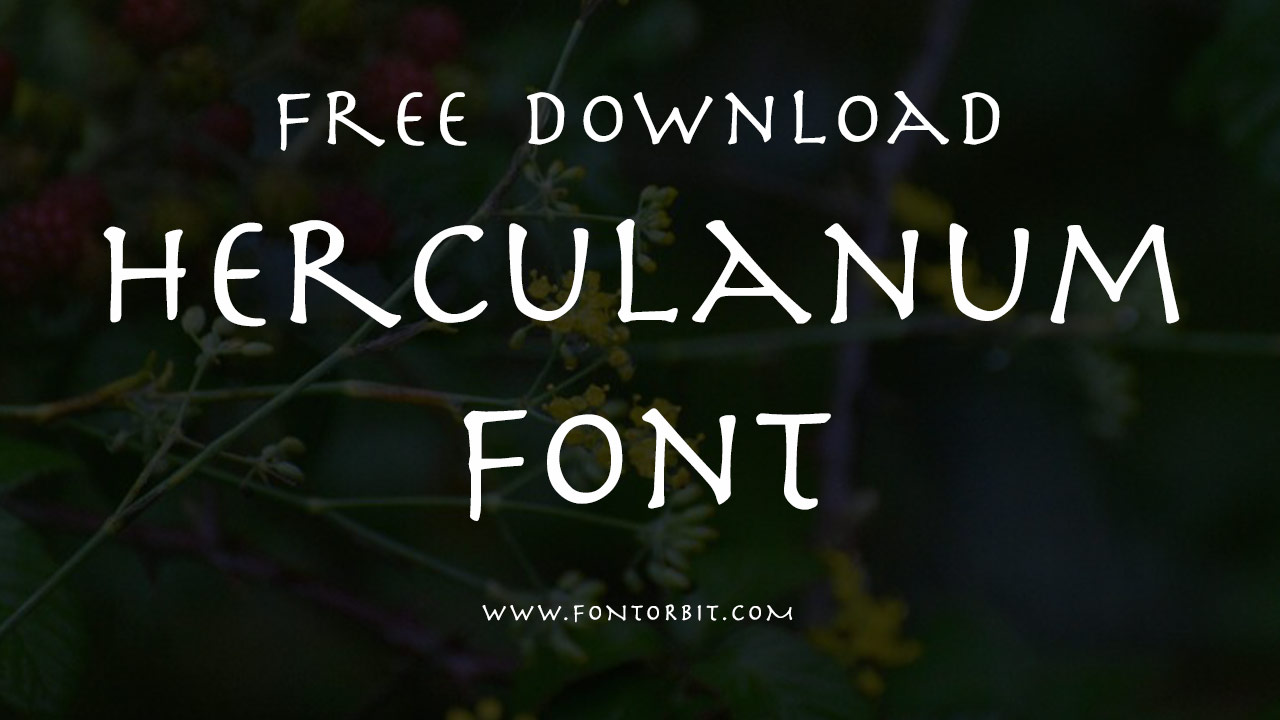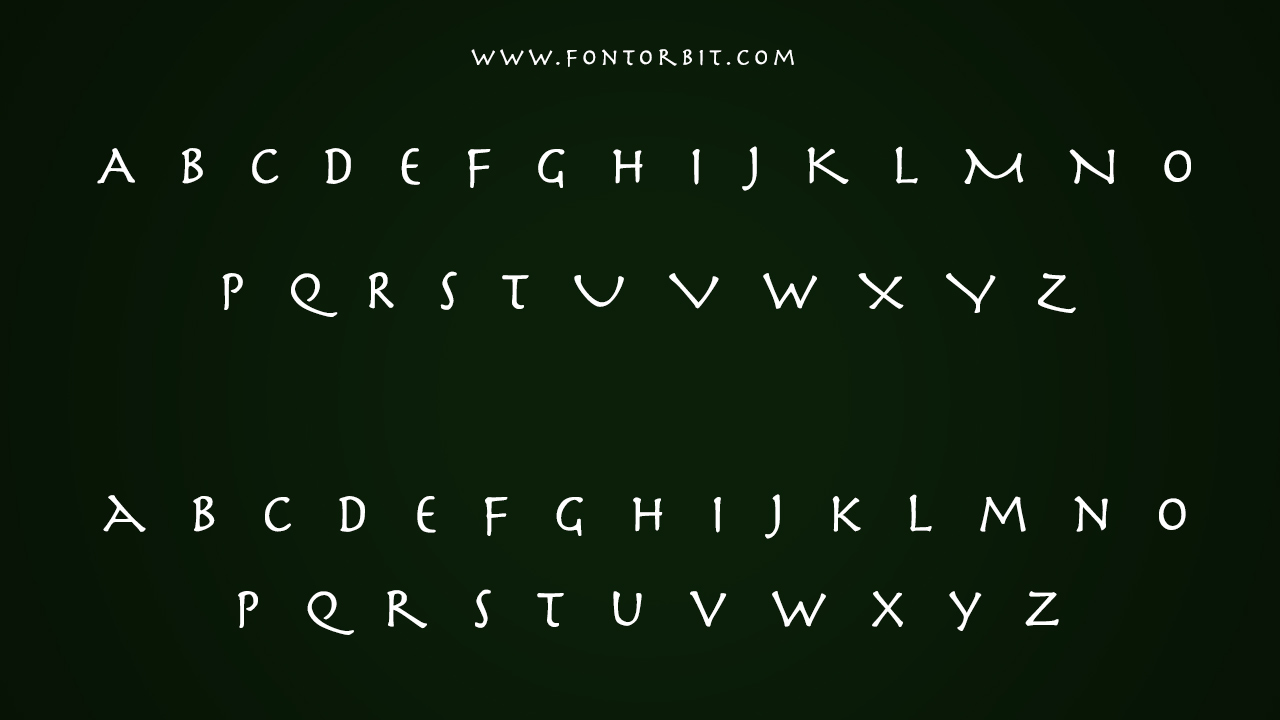
Herculanum is a unique handwritten font designed by Adrian Frutiger. It was crafted with a distinctive style that combines elements of classic handwriting with modern design aesthetics.
Renowned for its bold, textured appearance, Herculanum adds an elegant, ancient feel to any design project. It has a PostScript name of “Herculanum” and comes with a set of various characters and glyphs. The font is created with a natural, rugged texture and is set at 1000 units per em. Ideal for personal use, Herculanum is perfect for those seeking a historic, handwritten touch to their text.
The Herculanum Font Family
- Herculanum Regular
- Herculanum Pro Roman
- Herculanum Pro Bold
- Herculanum Pro Outline
The Herculanum font family includes a single style available in both OTF and TTF formats. Its rugged, handwritten charm provides an ancient aesthetic, making it suitable for a variety of design projects.
With an extensive character set, Herculanum ensures flexibility in design, supporting multiple languages and various typographic needs. The font’s medium width and semi-bold weight provide a balanced and dynamic presence in both digital and print media.
Herculanum is often used in designs that require a unique, textured script. Its distinctive appearance pairs well with both modern and classic fonts, making it a versatile choice for creating a striking visual impact in various media. It’s ideal for different design projects, offering a bold and elegant touch.
Final Words
Herculanum is the perfect font for designers looking to add a historical and artistic flair to their work. To further customize Herculanum’s glyphs or to create unique variations, you can use font editing software such as FontForge or Glyphs.
The font is best utilized at larger sizes (24pt and above) for headlines and titles to showcase its bold, ancient style. Its dynamic script and versatile character set make it an invaluable tool for various creative applications.
2.What Are The Different Weights Available In Herculanum Font?
Herculanum is available in a single weight, which is semi-bold.
3.How To Create A Modern Look Using Herculanum Font?
Pair Herculanum with clean, modern sans-serif fonts and utilize ample white space to balance its bold script style for a contemporary design.
6.How To Use Herculanum Font In A Design?
Incorporate Herculanum for headings, titles, or accent text to give your project an ancient, handwritten style. Pair it with clean, modern fonts for contrast.
9.What Are The Best Pairings For Herculanum Font?
Pair Herculanum with clean sans-serif fonts like Helvetica or classic serifs like Garam
ond to create a sophisticated and balanced design.